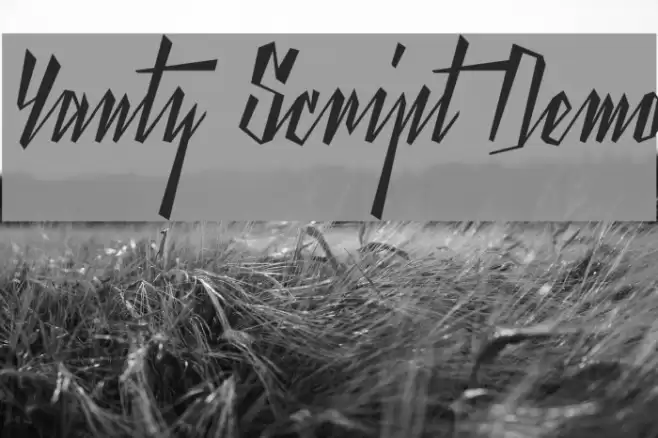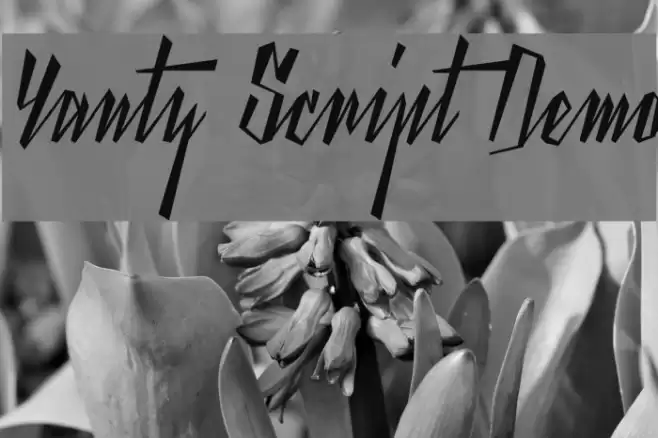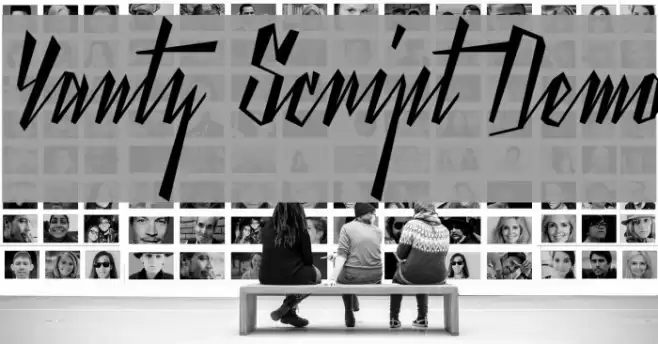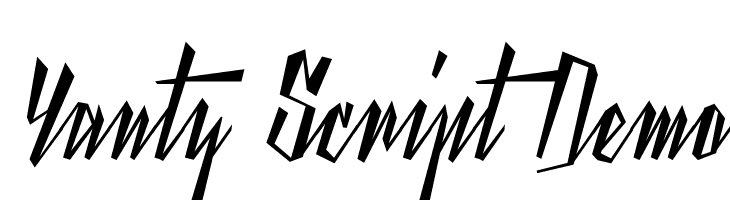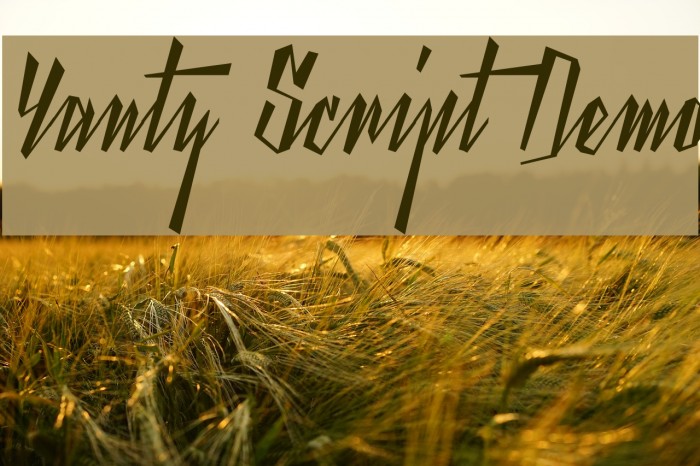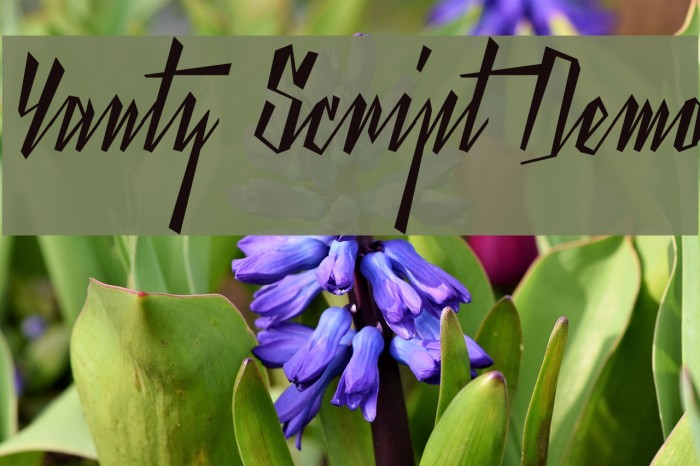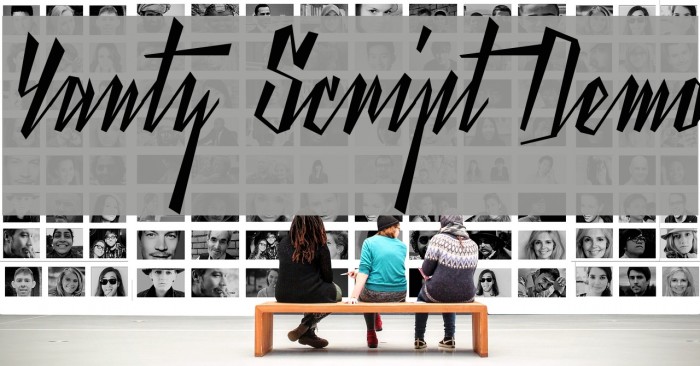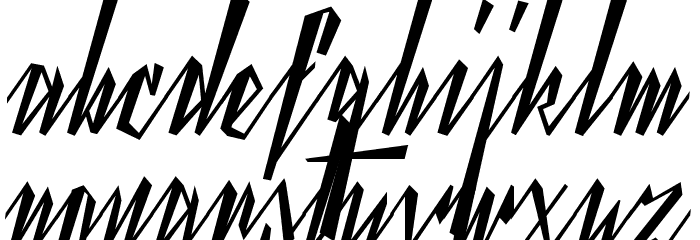
Yanty Script Demo Font
Yanty Script Demo Description
This font features a dynamic and energetic script style with sharp, angular strokes that convey a sense of movement and flair. The uppercase letters are bold and striking, with a distinct slant that adds to their dramatic appearance. Lowercase letters maintain a consistent flow, with elongated strokes that enhance the font's fluidity. The numbers and special characters are crafted with the same attention to detail, ensuring a cohesive look across all elements. This font's unique style makes it stand out, perfect for projects that require a touch of elegance and creativity.
A dynamic script font with sharp, angular strokes and a dramatic slant from Uncategorized fonts.
- Character Spacing: Tight